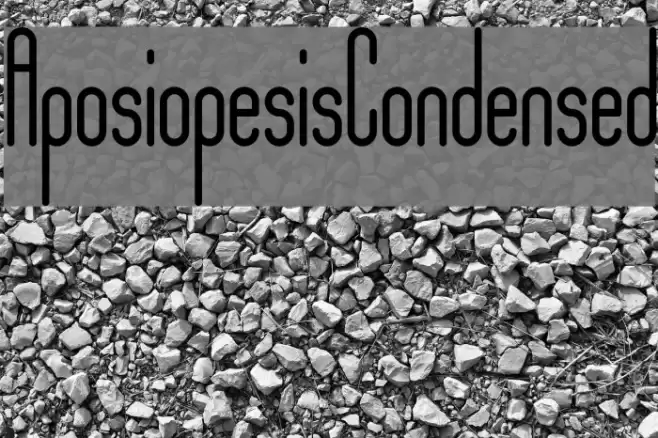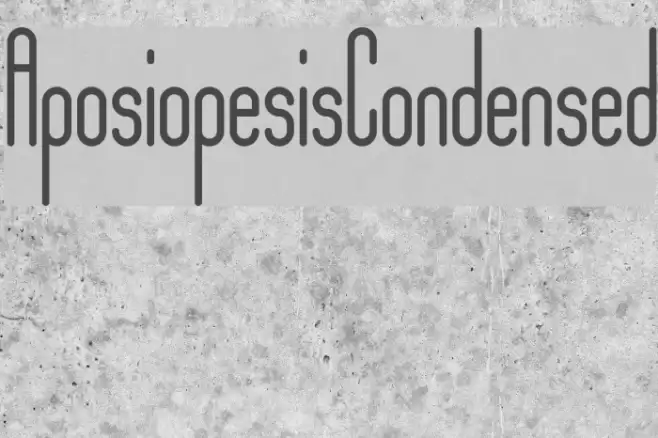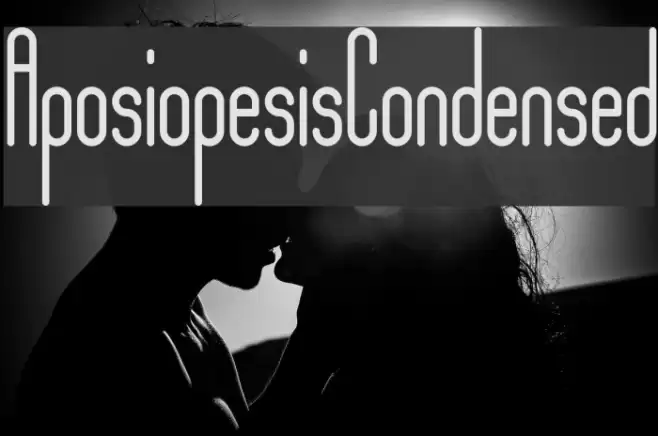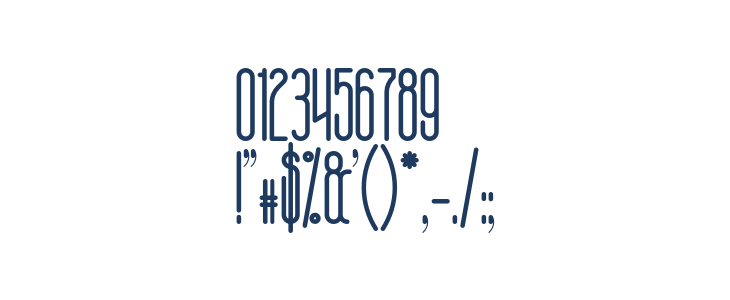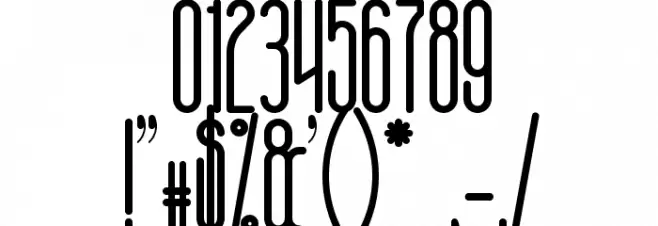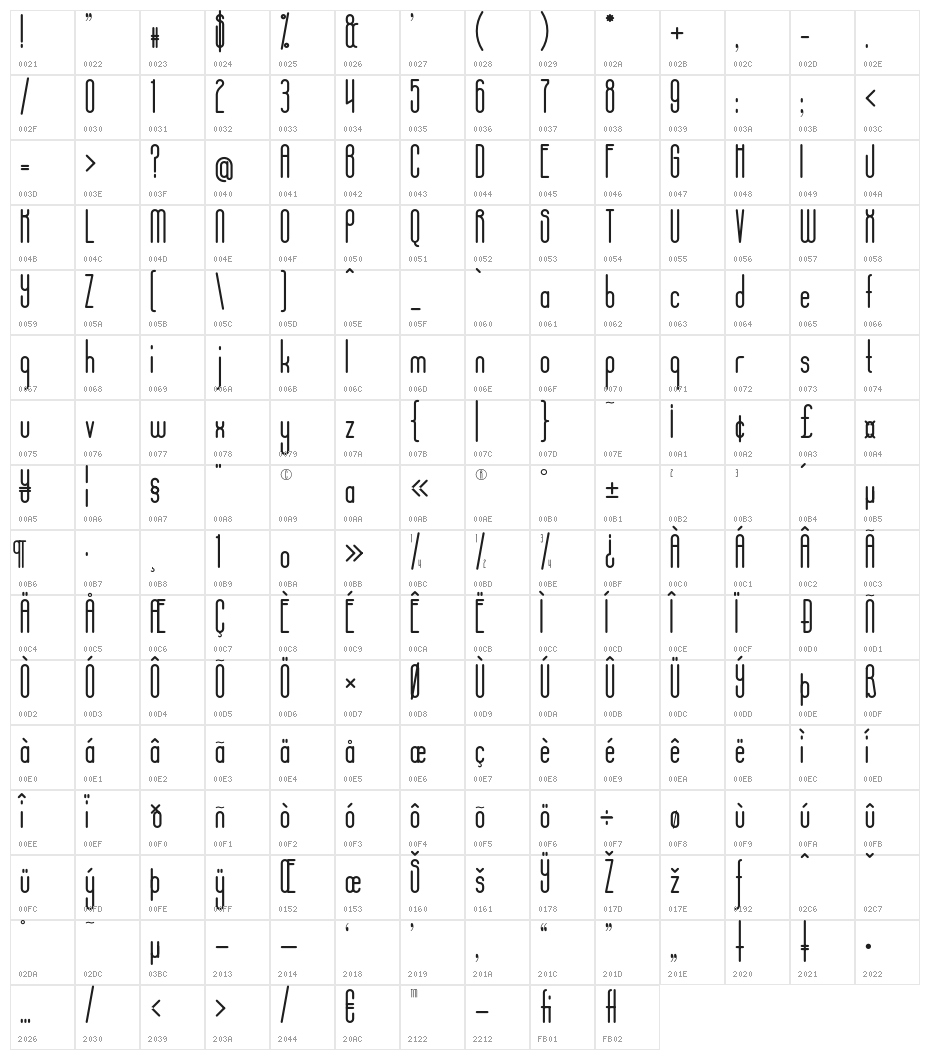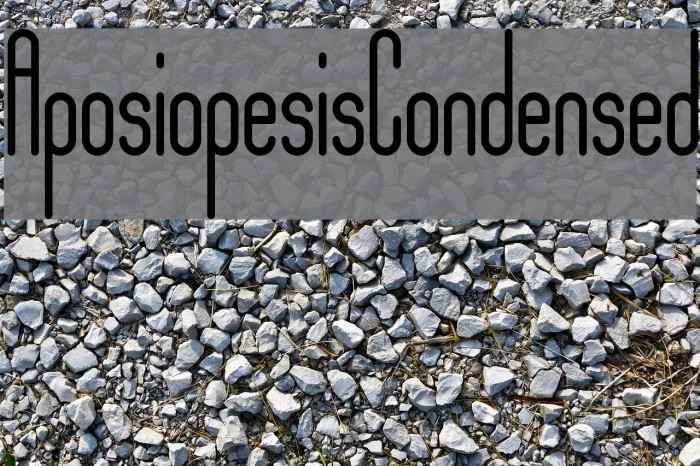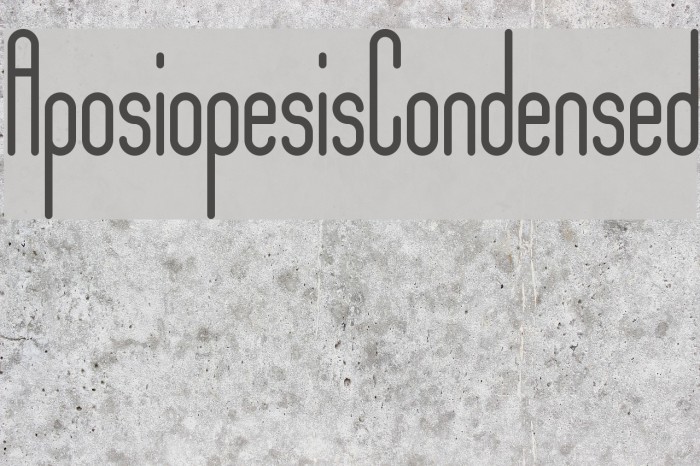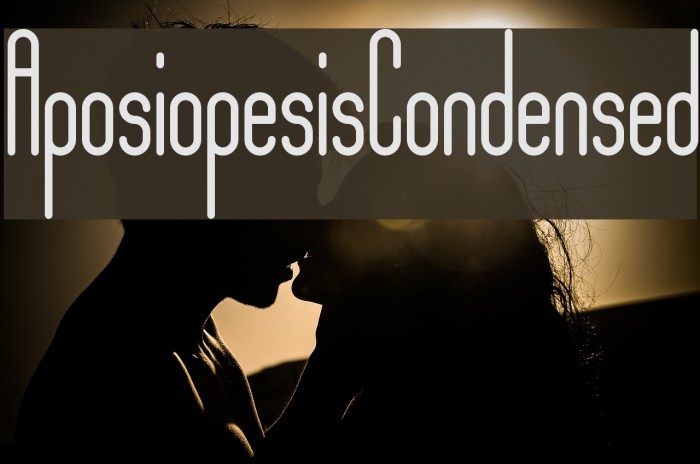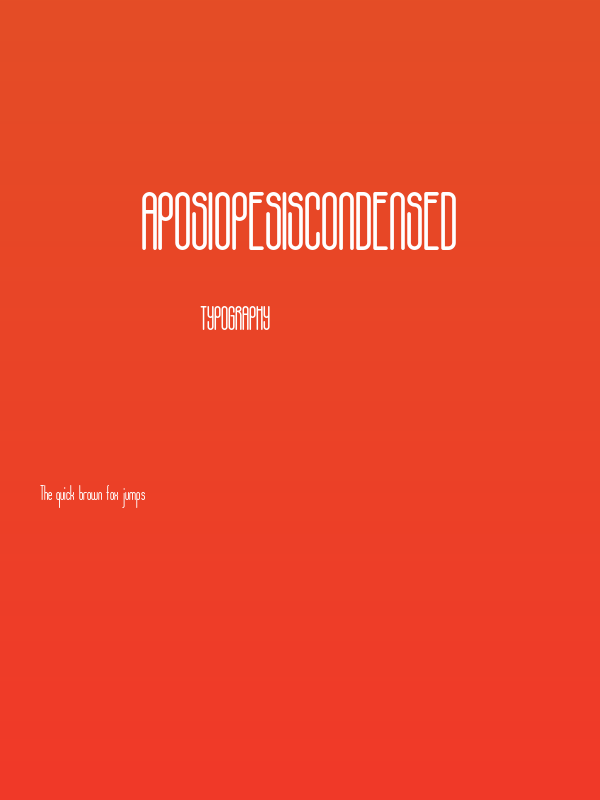
AposiopesisCondensed Font
AposiopesisCondensed Description
This font features a tall, narrow design with a distinctly modern and geometric aesthetic. The characters are elongated and condensed, creating a sleek and sophisticated appearance. The uniform stroke width throughout the characters gives it a clean and minimalistic look, while the rounded edges add a touch of softness. The uppercase and lowercase letters maintain a consistent style, with the lowercase letters being slightly shorter but equally narrow. The numerals and special characters follow the same design principles, ensuring a cohesive overall appearance. This font is ideal for projects that require a contemporary and stylish touch.
A modern, condensed font with a sleek, geometric design from Uncategorized fonts.
- Proposed Projects: Ideal for branding, posters, modern web design, and editorial layouts.
- Character Spacing: Tight